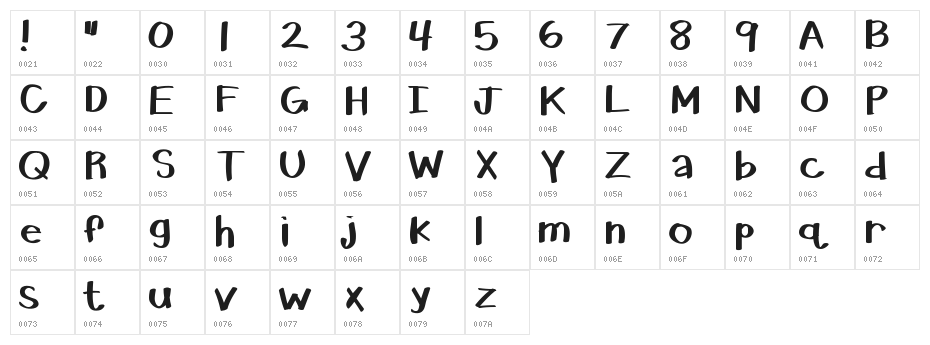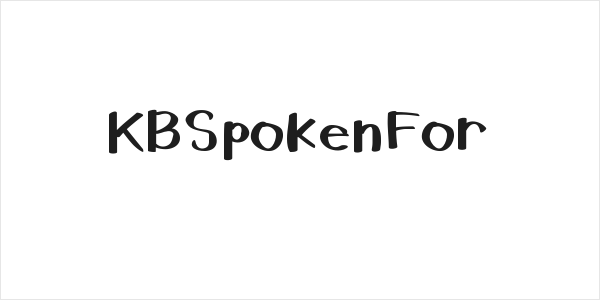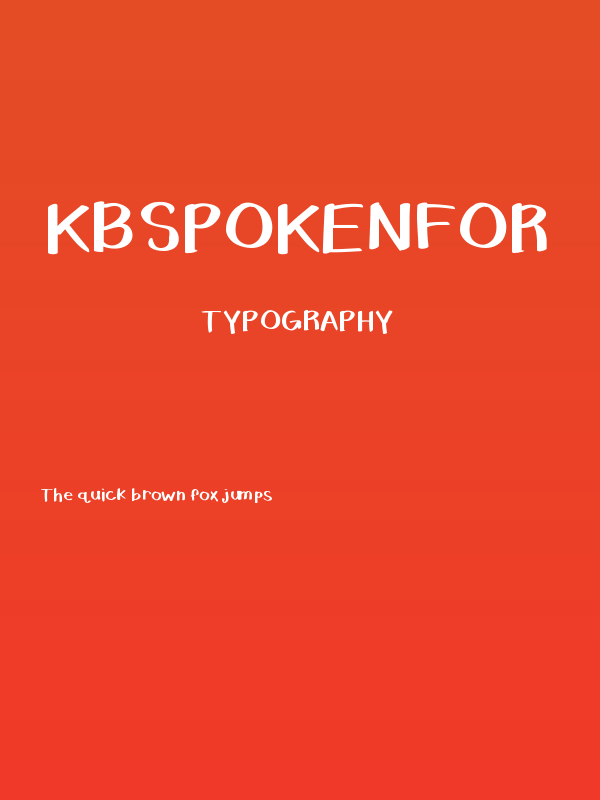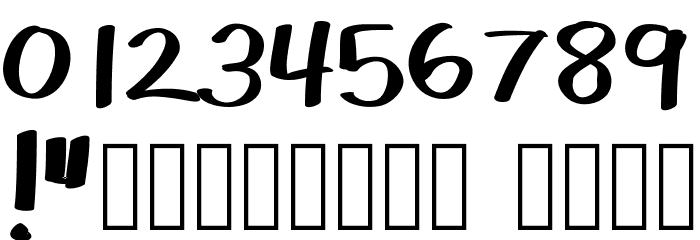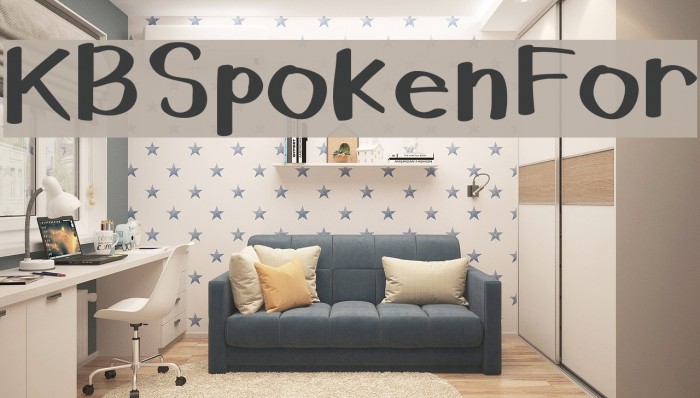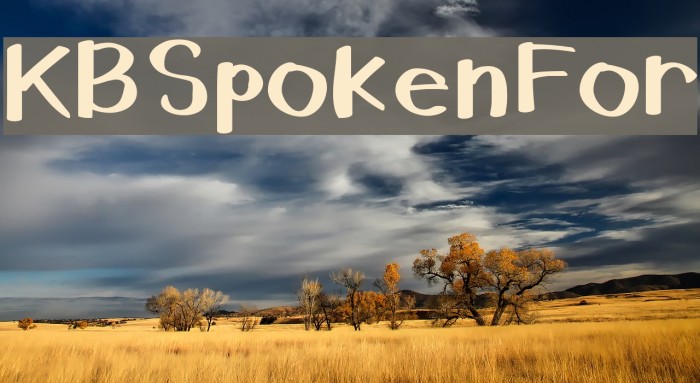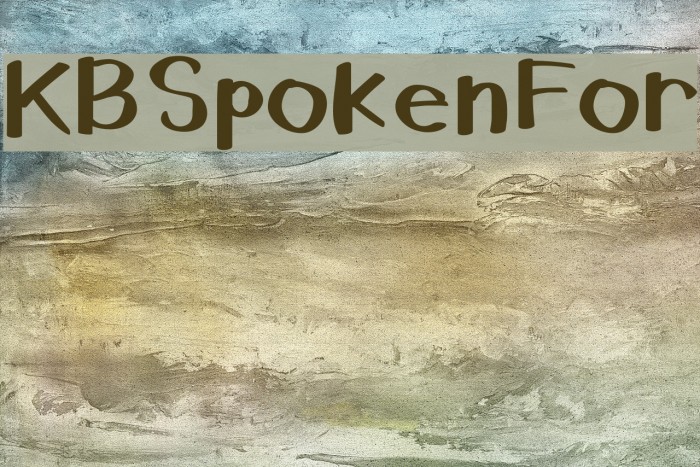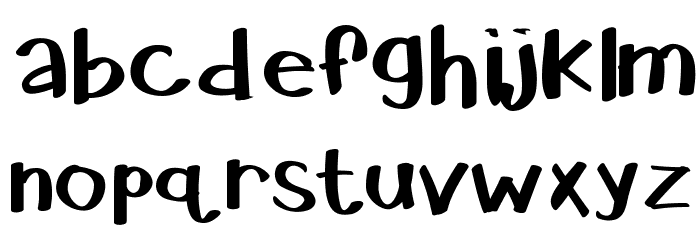
KBSpokenFor Font
KBSpokenFor Description
This font features a playful and whimsical style with a handwritten appearance. The characters are bold and slightly irregular, giving them a lively and dynamic feel. The uppercase letters are distinct with varying stroke widths, while the lowercase letters maintain a consistent flow with some unique curves and loops. The numbers are rounded and match the overall playful aesthetic. Special characters are creatively designed, adding to the font's charm. This font is ideal for projects that require a fun and informal touch.
KBSPOKENFOR UPPERCASE
KBSPOKENFOR LOWERCASE
KBSPOKENFOR OTHER CHARS
| Proposed Projects | Ideal for children's books, playful branding, greeting cards, and informal invitations. |